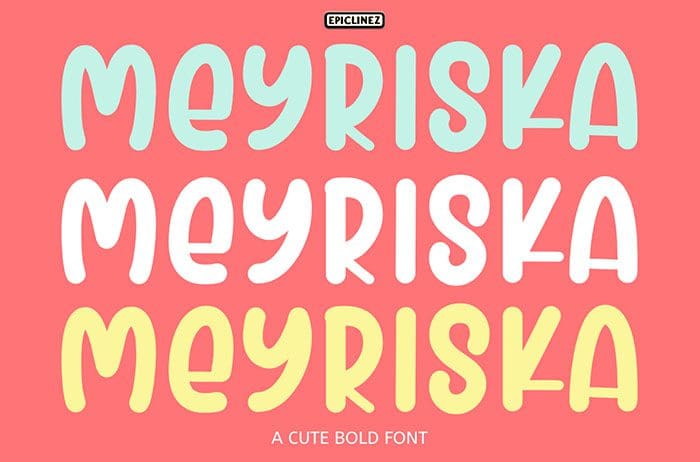
Free Meyriska display font is a cute and stunning handwritten font. This all caps font will elevate your crafting projects to a new level! This font is available only for personal use. Created this font by Epiclinez. You can also search more freeĀ Fonts.